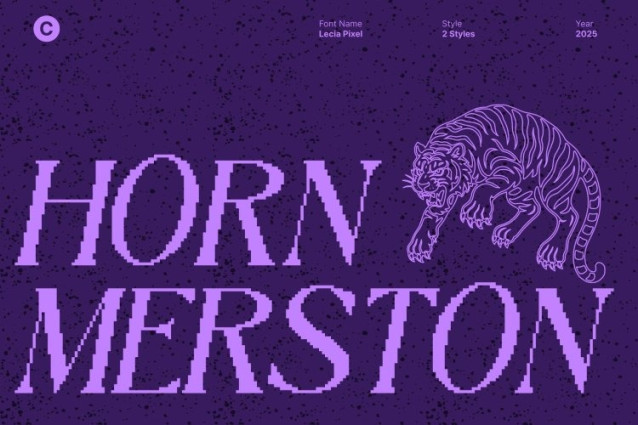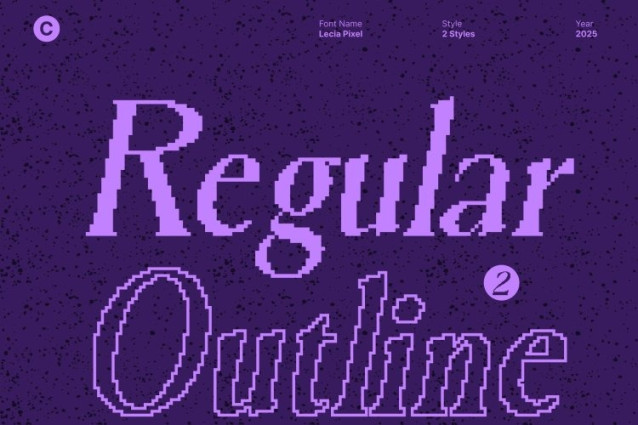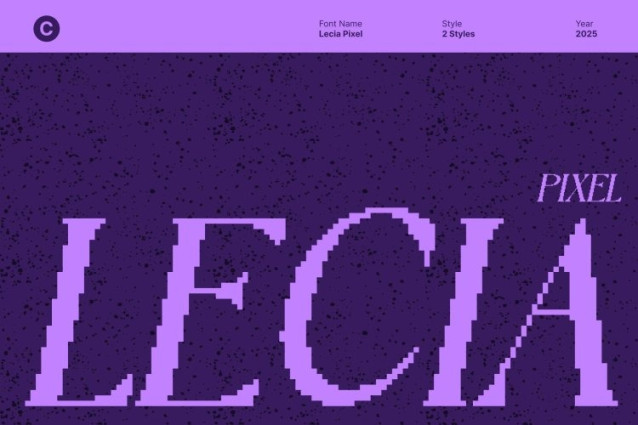
Lecia Pixel Font
Lecia Pixel Font This is a display serif font that blends classic serif forms with a distinct pixelated style inspired by the iconic 90s digital era. Its structured shapes and crisp edges bring back the nostalgic charm of early screen typography, giving your design a unique blend of vintage personality and digital flair.
Pixelated Style for a Strong Nostalgic Vibe
Crafted with pixel-inspired details, this font evokes the unmistakable atmosphere of old-school video games, bitmap graphics, and early computer interfaces. The pixel texture adds a visually striking, character-rich aesthetic that makes your text feel intentionally retro, bold, and full of attitude.
Classic Serif Forms with Modern Digital Twist
The serif construction adds stability and elegance to each character, balancing the raw digital pixel effect. This combination enhances legibility while giving every letter a timeless yet futuristic look. The result is a font that feels familiar yet fresh perfect for designs that want to bridge eras.
Perfect for Posters, Branding, Games, and Creative Works
This font shines in projects that demand a nostalgic digital theme or a visually distinctive identity. From bold posters and retro-inspired branding to game interfaces, digital artworks, and creative layouts, this font adds charm, character, and a unique retro-tech personality. Use this font to instantly transform your design into a classic yet creative visual experience.